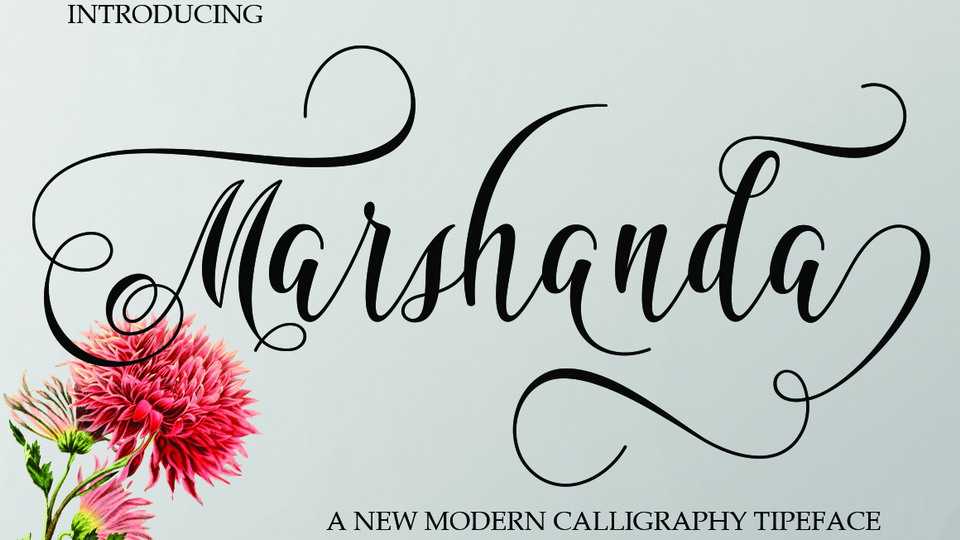
Download Marshanda font, a lovely modern calligraphy script with a dancing baseline, elegant touch and fancy swashes. Great for wedding design, cards, letters, social media, feminine logos, branding and more.
Designer: Jhoen Studio